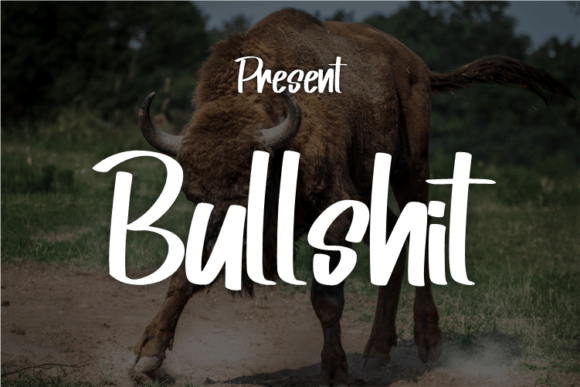
In a digital world saturated with monotonous texts, your words deserve a canvas that reflects their uniqueness. Allow us to introduce Bullshit Font, the ultimate script typeface poised to transform your creative expressions into captivating masterpieces. This extraordinary font, meticulously crafted by the visionary Eric Kusuma, embodies elegance and sophistication, ready to elevate your designs to unparalleled heights.
With its clean lines and modern aesthetics, Bullshit Font seamlessly blends timeless beauty with contemporary flair. Each character, meticulously shaped with precision, exudes an aura of grace and refinement. Whether you're crafting an elegant logo that demands attention or weaving captivating words onto a book cover, Bullshit Font possesses the versatility to adapt effortlessly to your creative vision.
For those seeking to ignite the flames of romance, Bullshit Font emerges as the perfect companion for Valentine's Day letters. Its flowing strokes and delicate curves echo the tender emotions of love, adding a touch of heartfelt elegance to your amorous expressions. Imagine the joy on your beloved's face as they receive a heartfelt message penned in the exquisite Bullshit Font.
But Bullshit Font's allure extends far beyond romantic endeavors. Its versatility shines across a myriad of design applications. Envision fashion brands adorned with logos that exude sophistication, magazines adorned with titles that command attention, and clothing adorned with quotes that inspire and empower. Bullshit Font seamlessly adapts to various design aesthetics, adding a touch of timeless elegance to every project it graces.
Join the ranks of creative visionaries who recognize the transformative power of Bullshit Font. Unleash your imagination and craft designs that captivate and inspire. Let Bullshit Font be your muse, guiding you towards creative triumphs that leave an indelible mark on the digital landscape. Embark on this creative journey today and elevate your designs to new heights of brilliance.